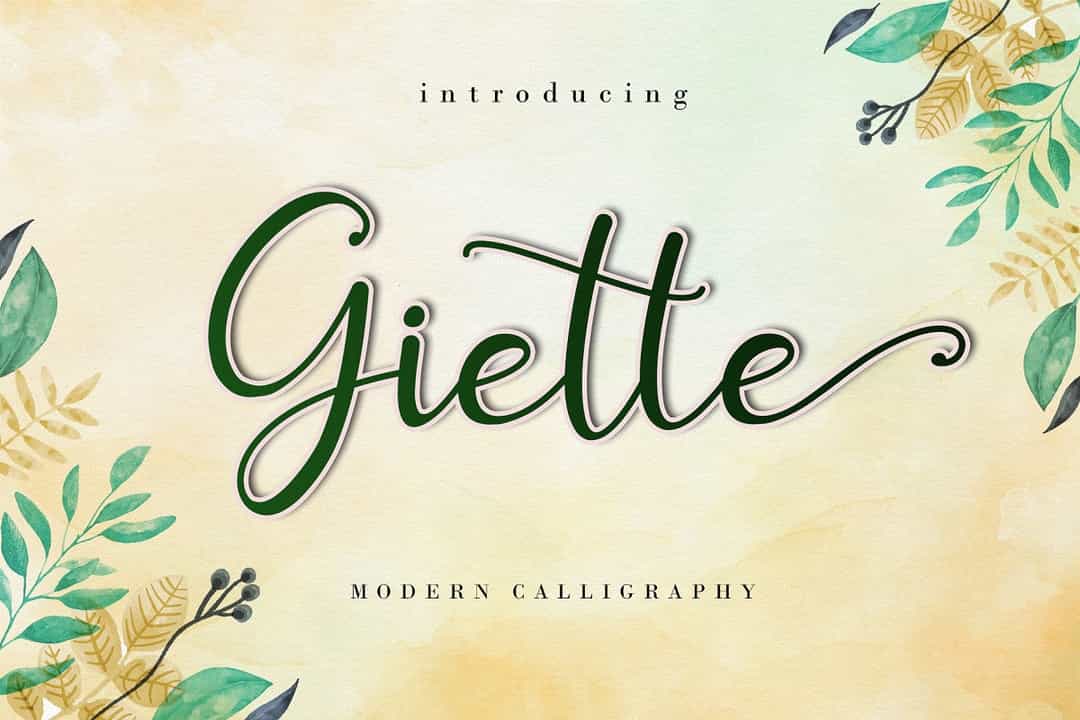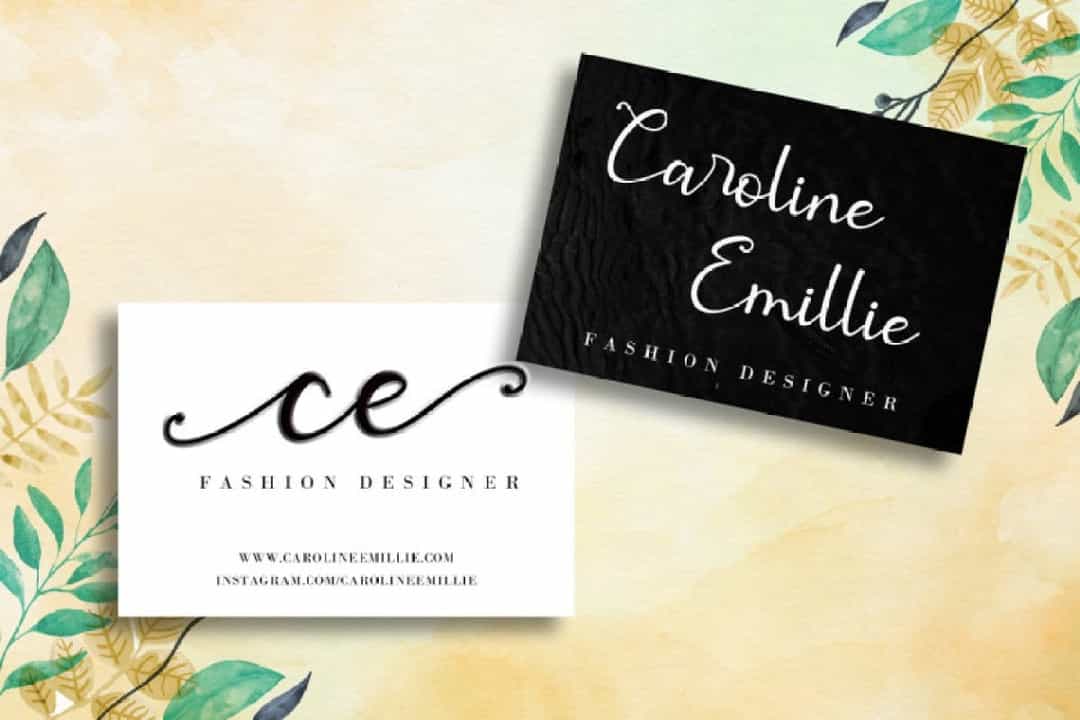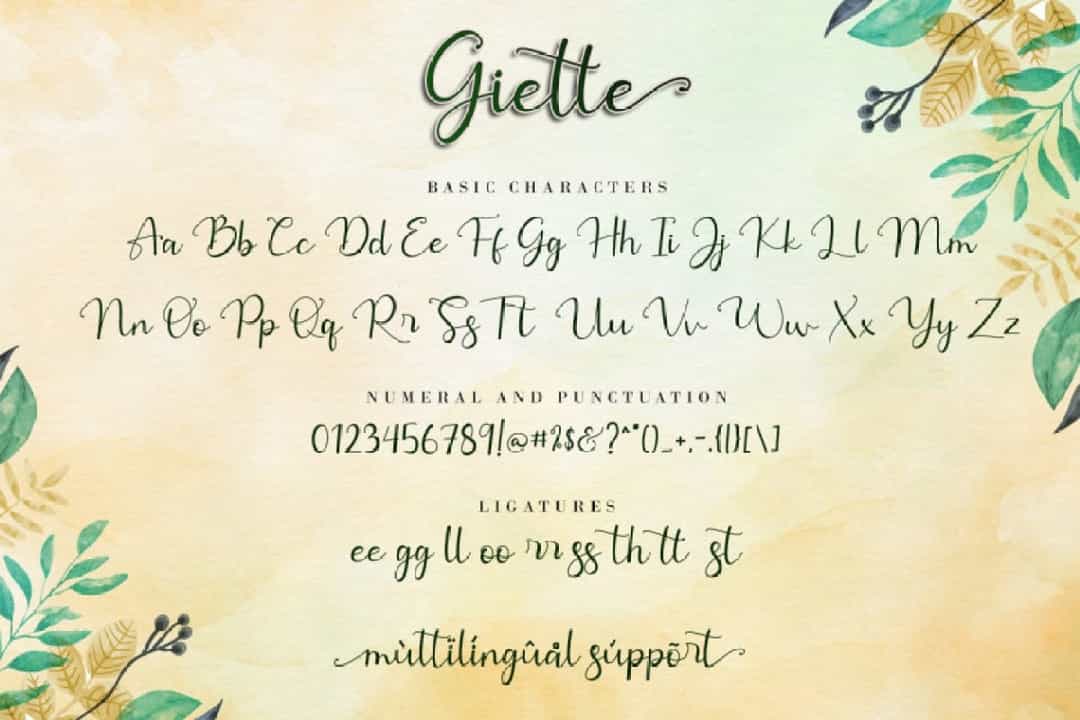
Giette is a sophisticated, sweet and elegant script font that has the ability to turn any design into a piece of art. This font is also PUA encoded. This is best for your various designs includes logos and branding and other posts on social media platforms. It is also perfect for ads and business cards, product designing and other related purposes.